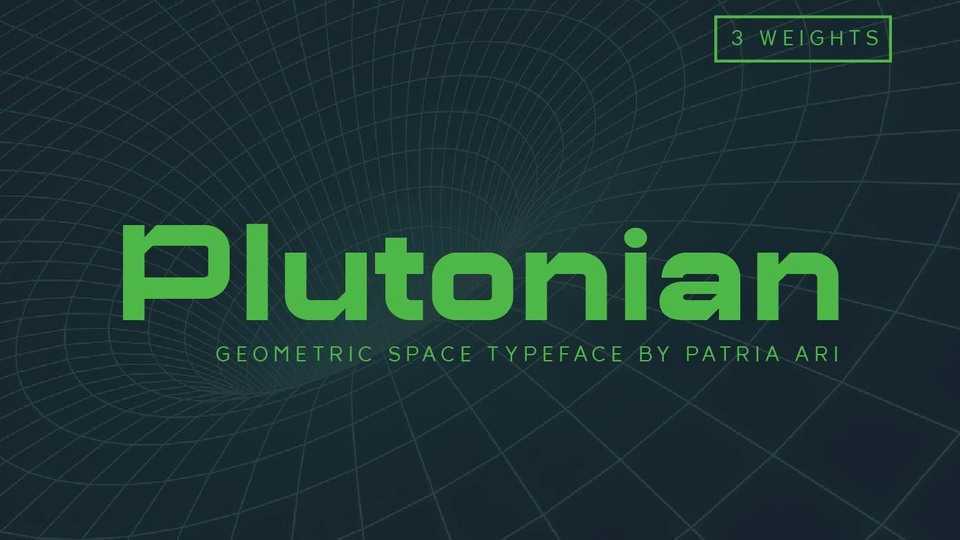
Download Plutonian font, a sans serif typeface inspired by space aircraft theme and made with simple geometric shapes. With Plutonian typeface, you can use it for logo, title, magazine cover, headline, signage and more.